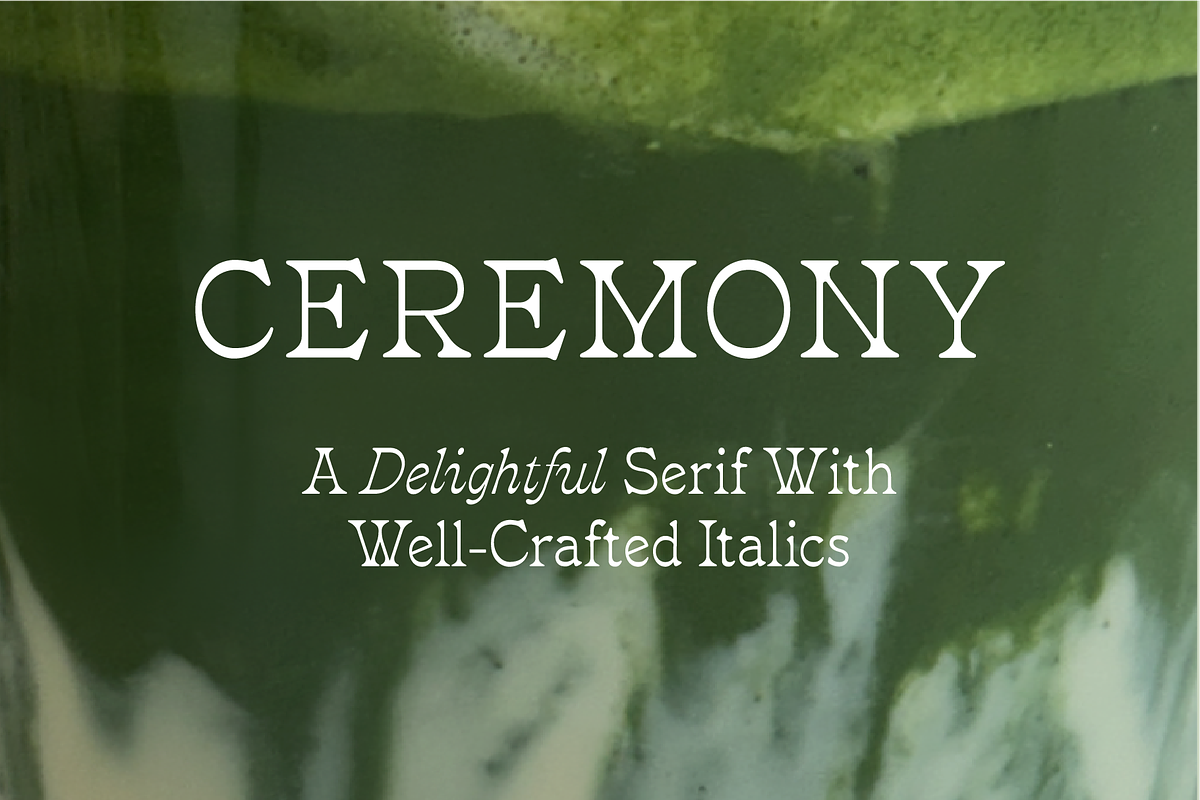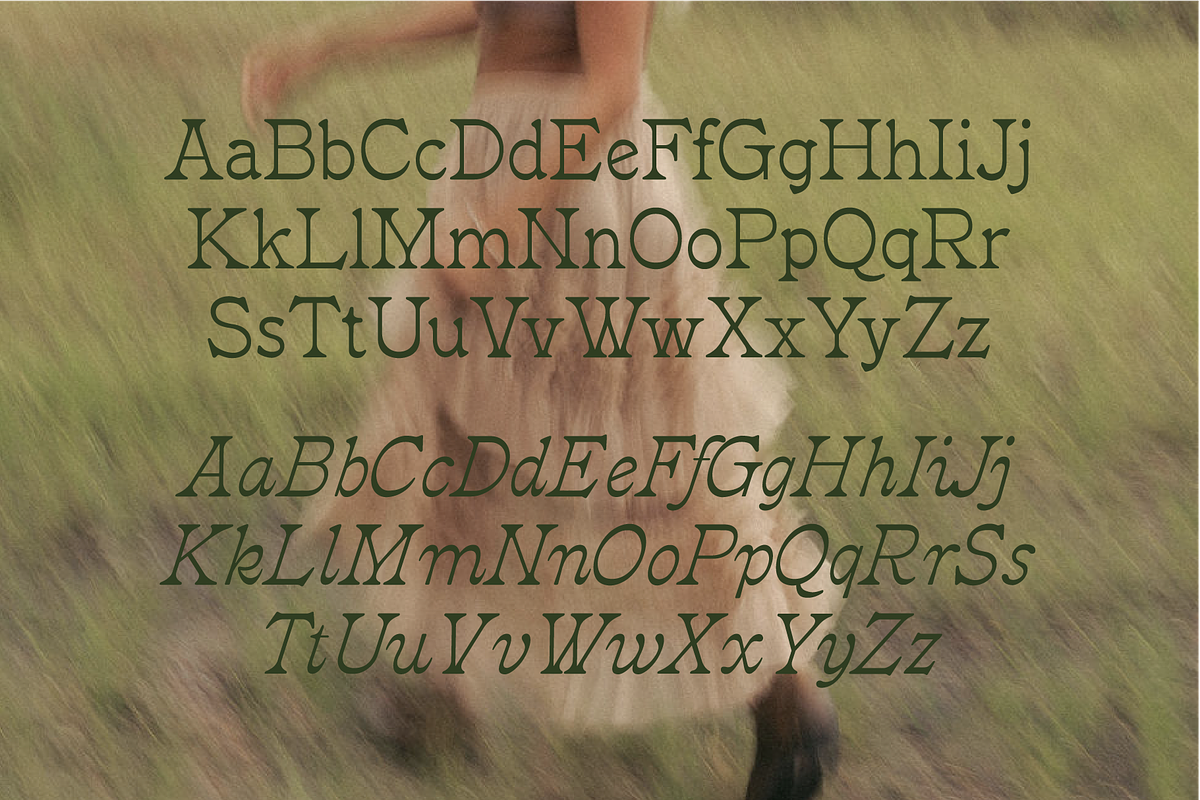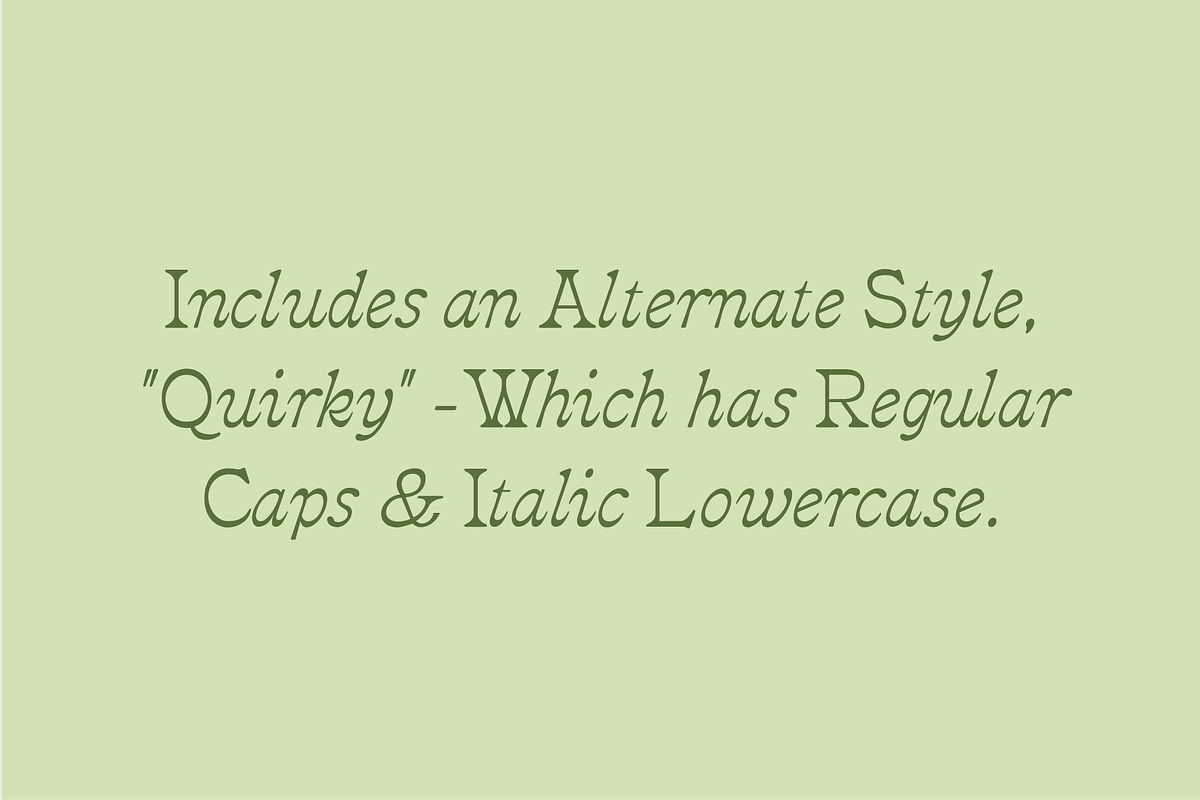
Ceremony Serif
Ceremony is a font that celebrates slow mornings, good taste in ceramics, and the ritual of perfecting a routine and enjoying the small moments within it.